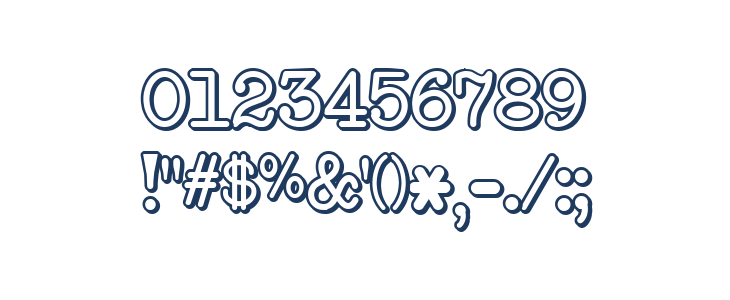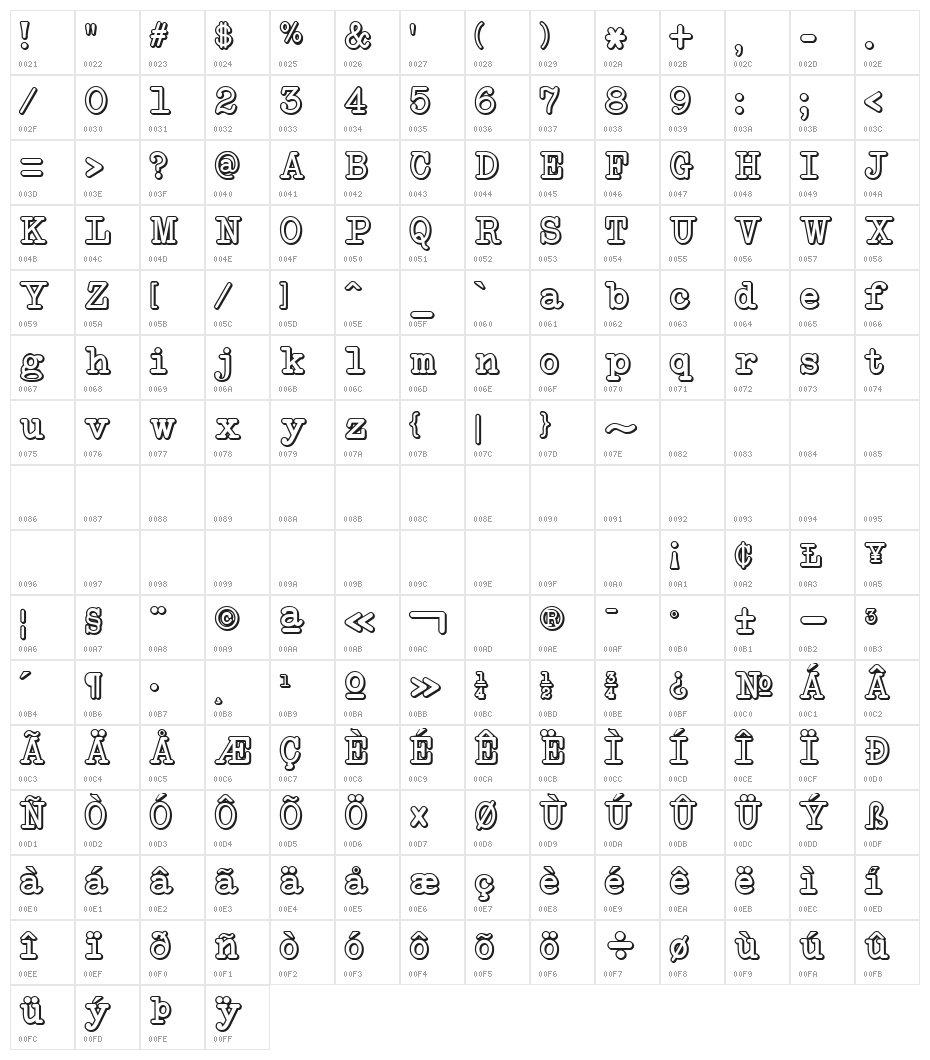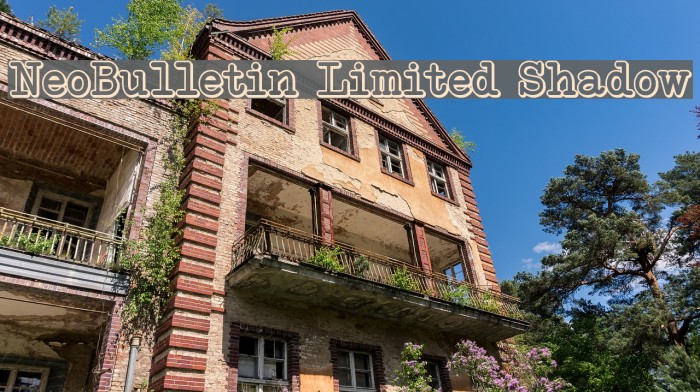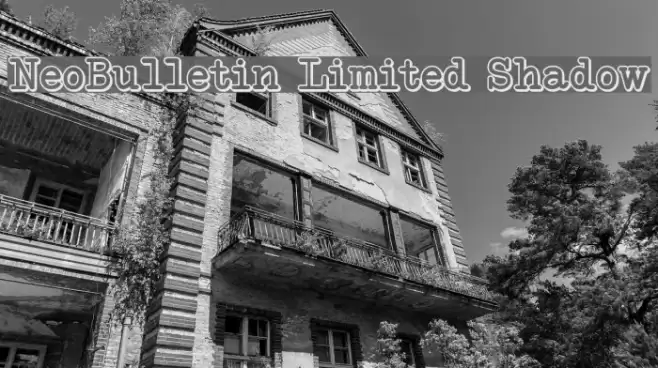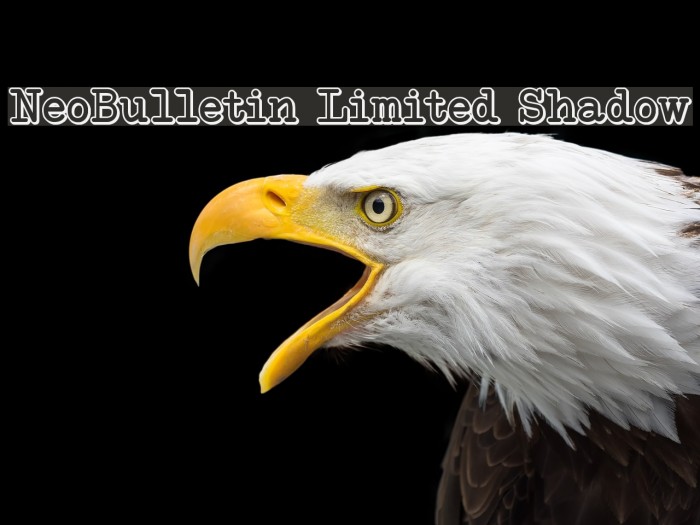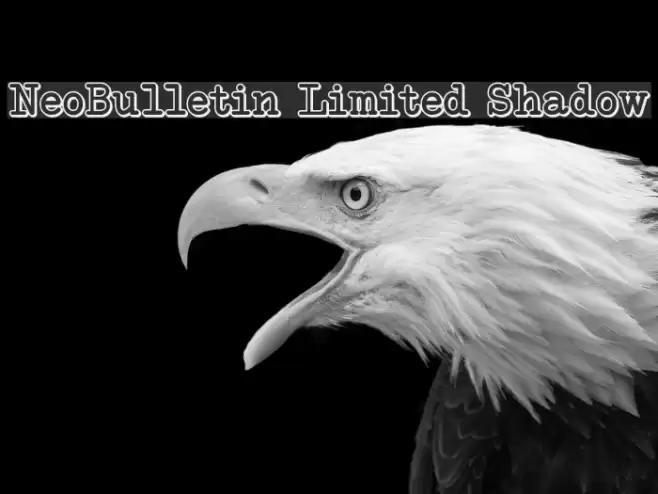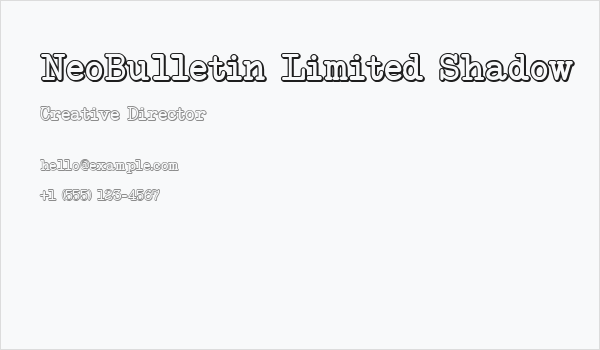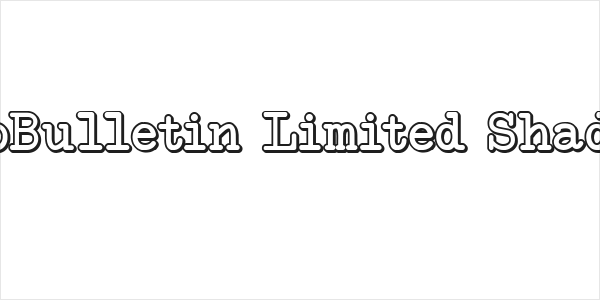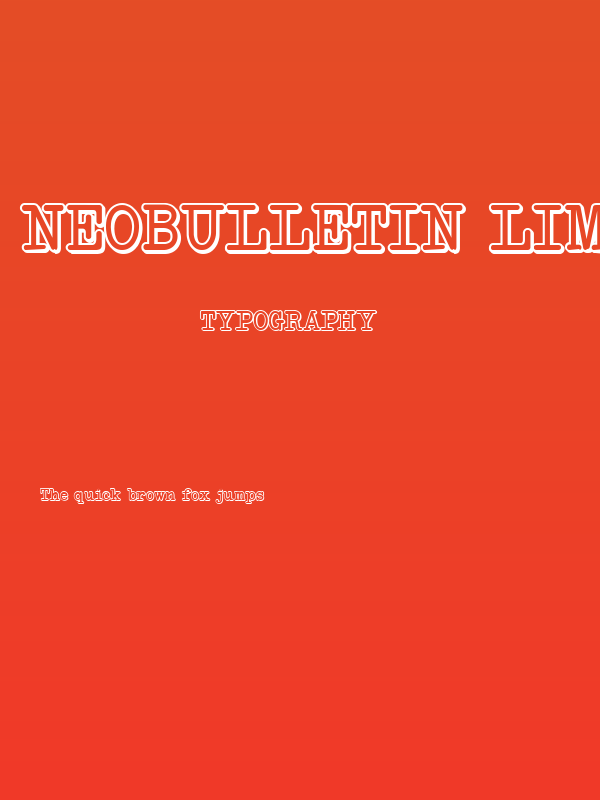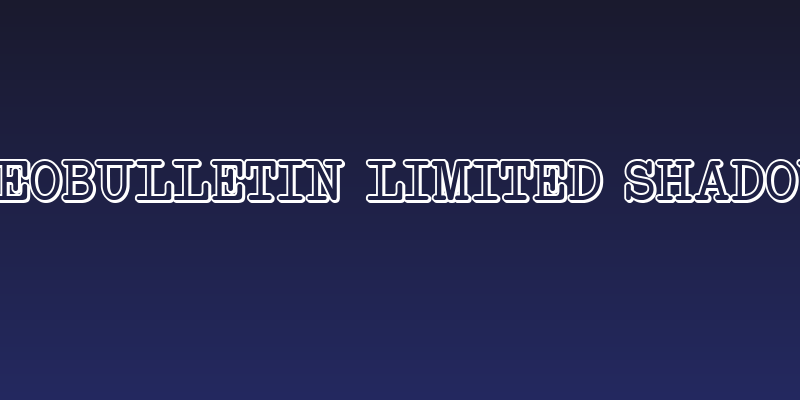
NeoBulletin Limited Shadow Font
NeoBulletin Limited Shadow Description
This font features a bold, outlined style with a limited shadow effect that adds depth and dimension to each character. The uppercase and lowercase letters maintain a consistent width, providing a balanced and uniform appearance. The numbers and special characters are designed to match the boldness of the alphabet, ensuring a cohesive look across all elements. The font's strong presence makes it ideal for attention-grabbing headlines and titles. Its decorative nature is enhanced by the shadow, which gives it a three-dimensional feel without overwhelming the text. The character spacing is normal, allowing for easy readability while maintaining its striking visual impact.
| Proposed Projects | Ideal for posters, banners, logos, and any project requiring a bold, eye-catching typeface. |